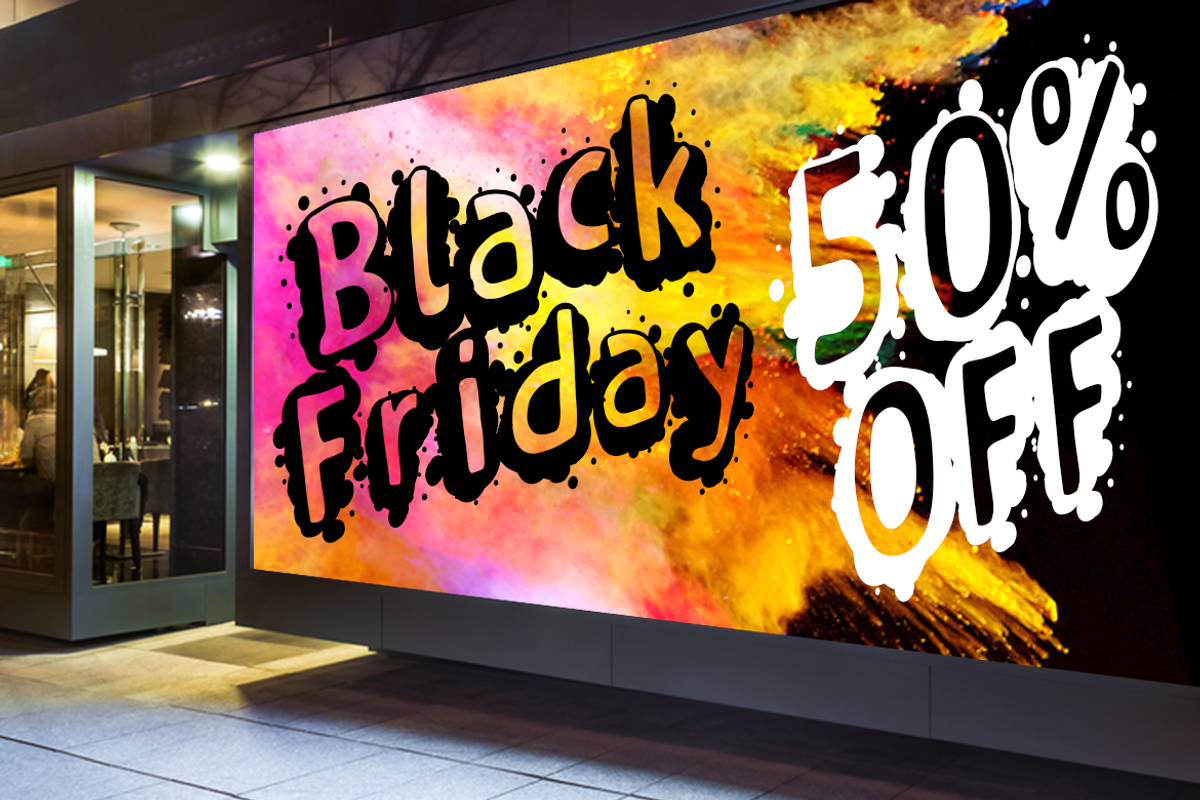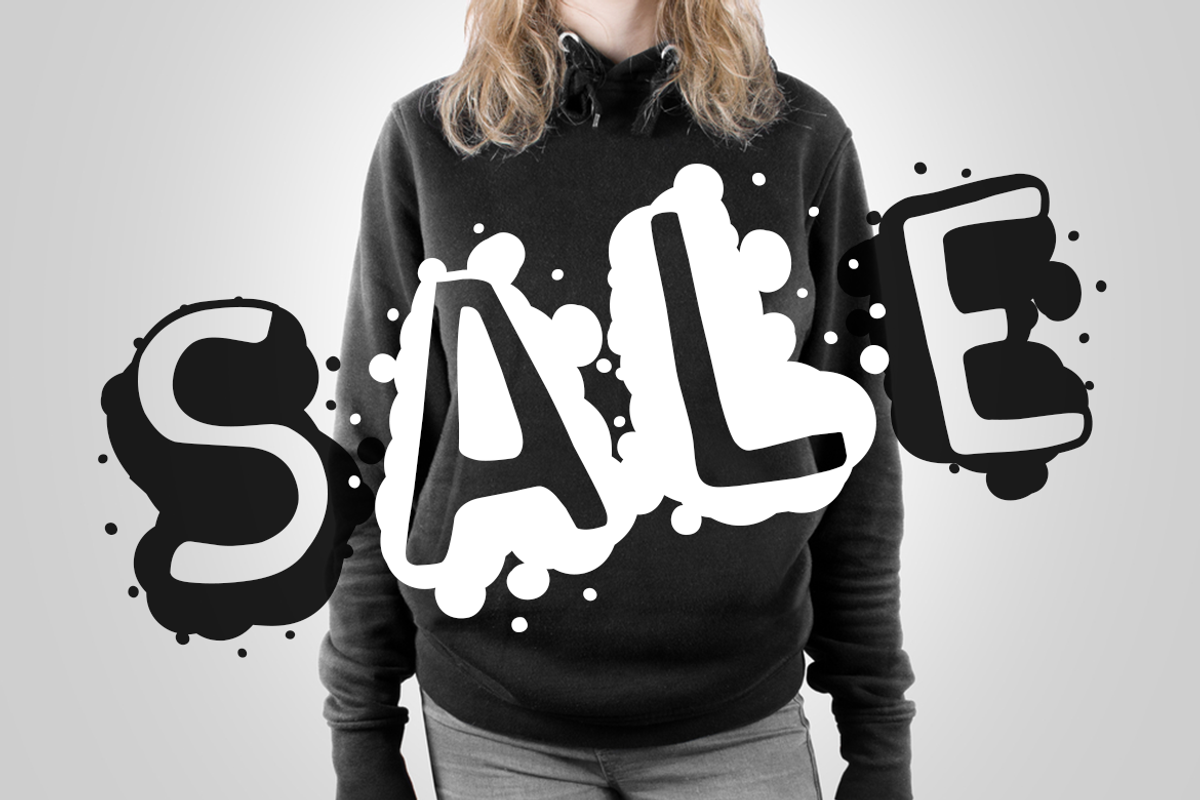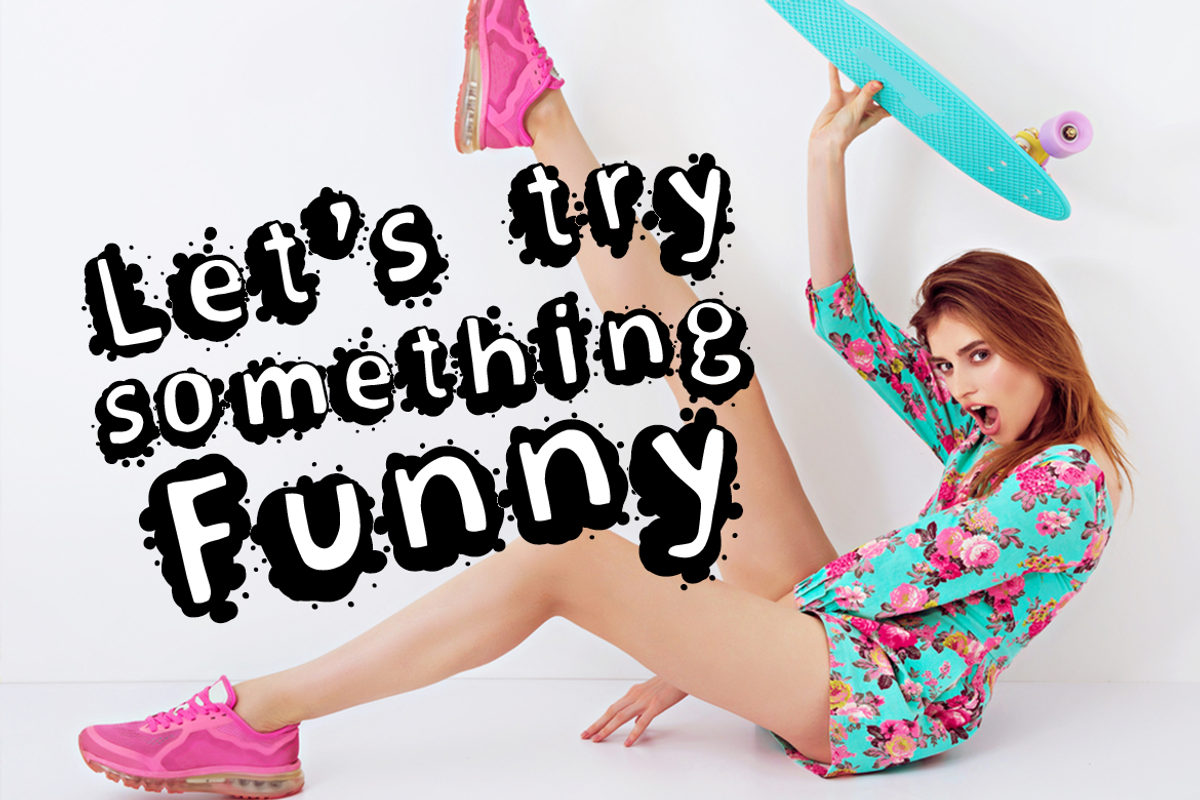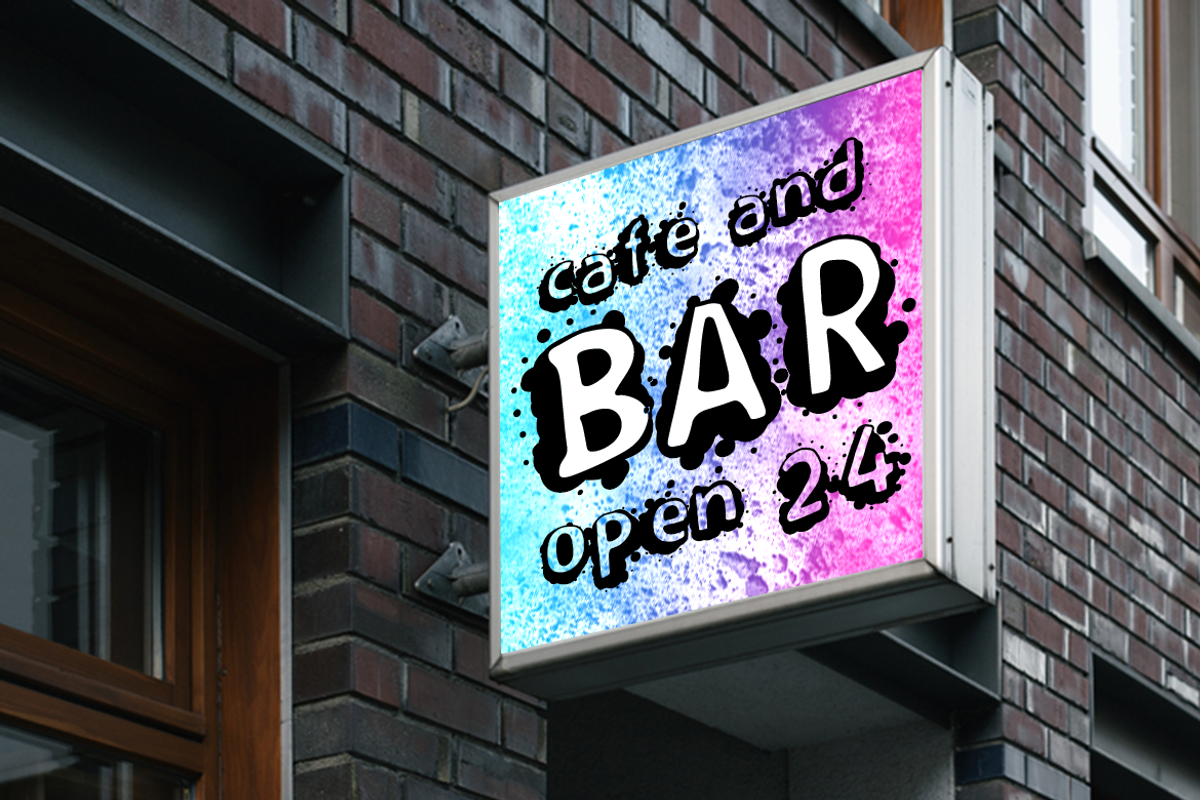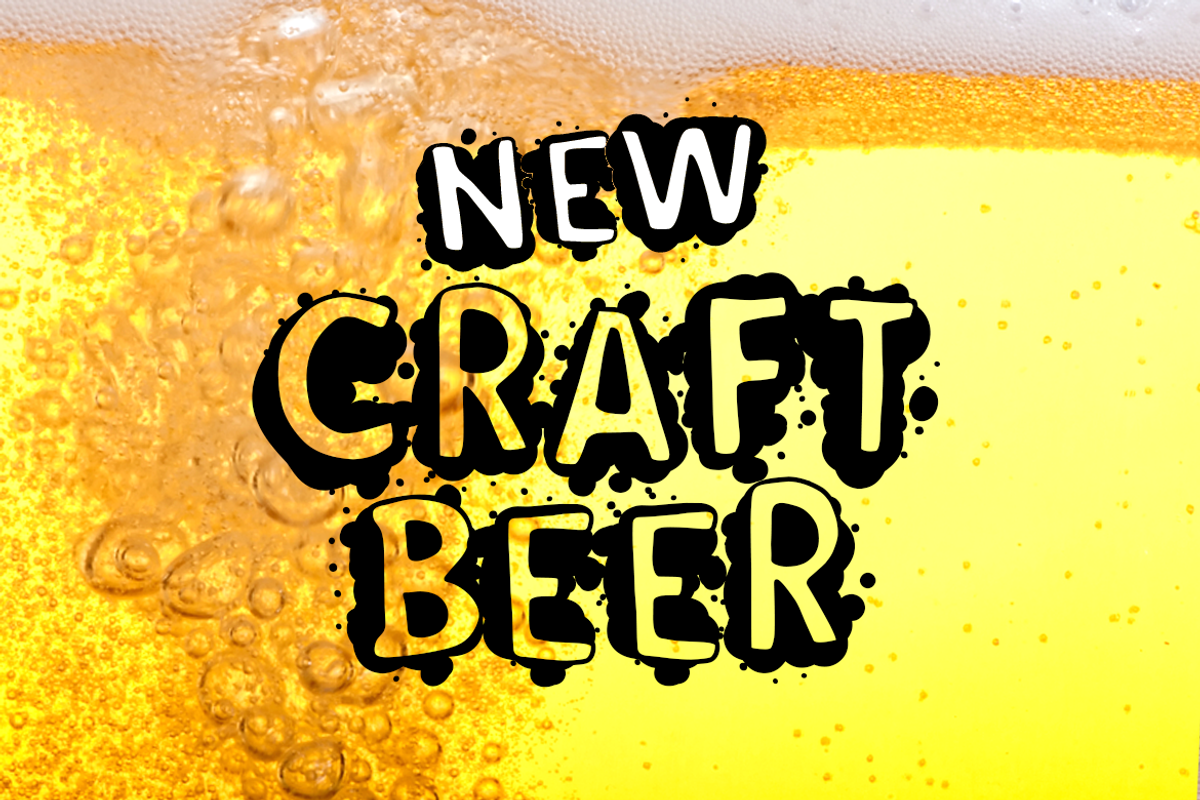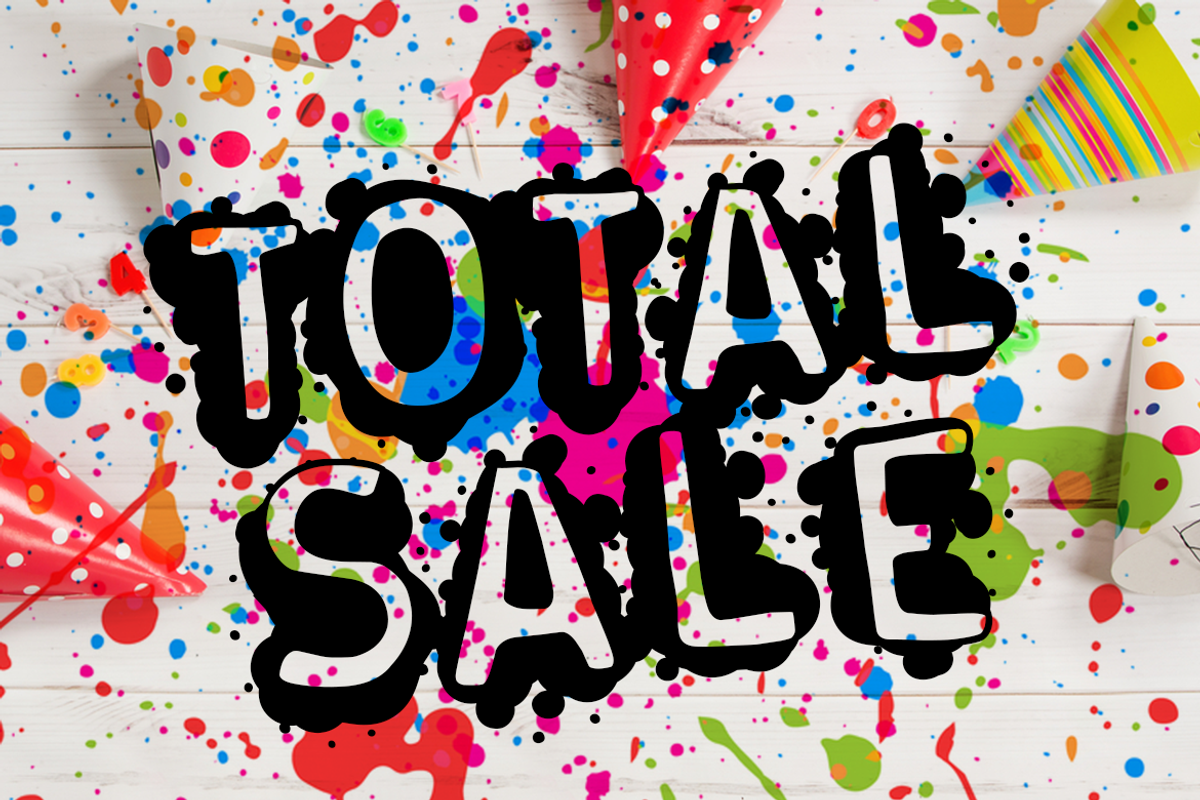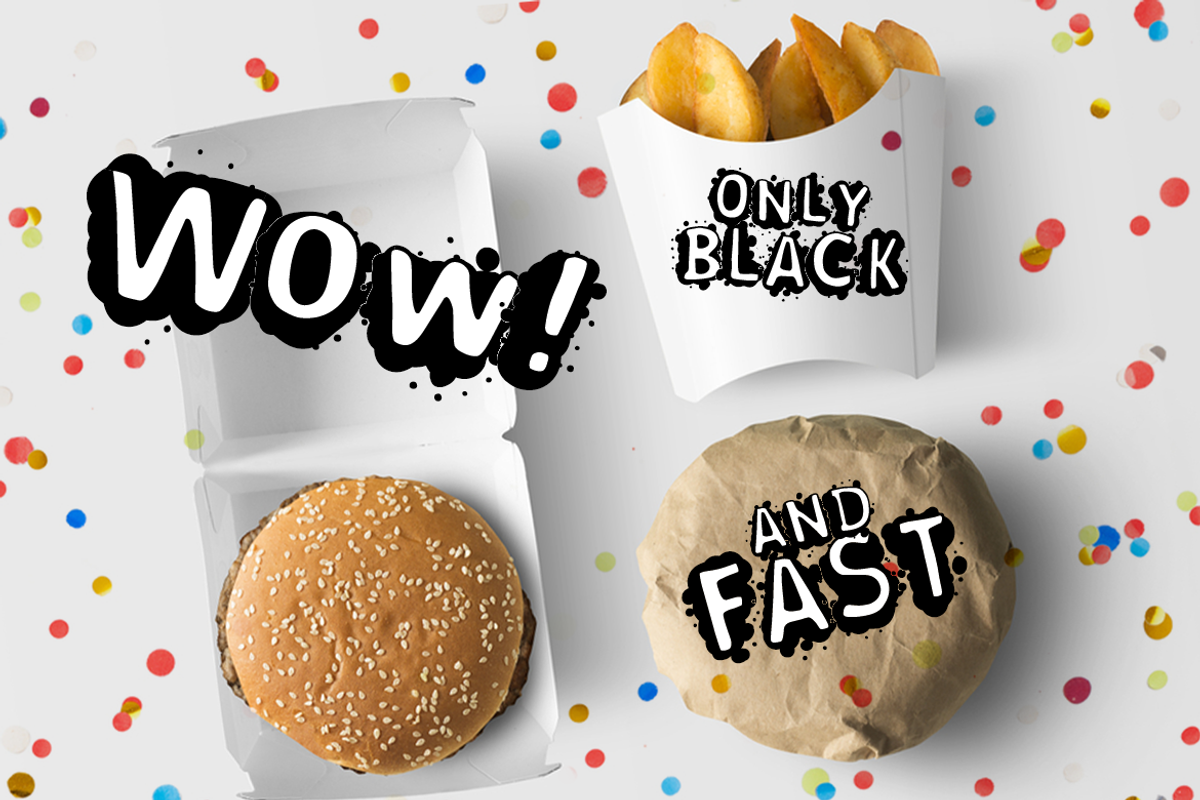
Splasher + WhiteFill version
I introduce you to my new font - Splasher.
Splasher a very unusual font, combining letters with smooth edges and different ink splashes. Cheerful and naughty, it has two versions: the first - letters with splashes around, through them a colored background is visible, the second version - it's the same letters with splashes around, but the letters have a white fill, thanks to which you can write over any background, which does not affect the readability of the inscription.
- uppercase letters
- lowercase letters
- numbers & punctuation
- special character set